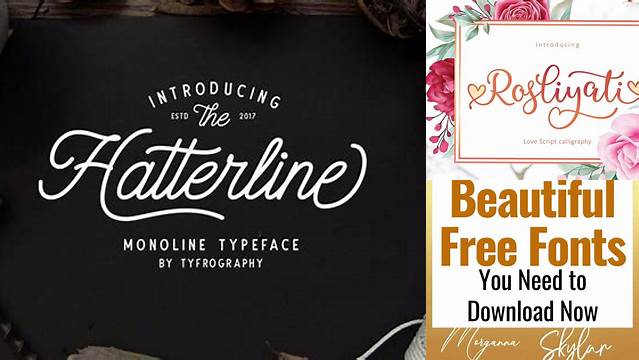
Get Stunning Script Fonts: Free Downloads Await!
Hey guys! Are you on the hunt for some beautiful script fonts to spice up your designs? Well, you're in the right place! This article is all about script font free download options, and trust me, there's a treasure trove of amazing fonts out there just waiting for you. We'll dive into where to find them, how to use them, and even explore some of the best free script fonts available right now. So, grab your coffee, settle in, and let's get this font party started! Let's explore the wonderful world of script fonts, looking at options for a script font free download, and how to make the most of these elegant and versatile typefaces. These fonts can bring a touch of sophistication, playfulness, or even a vintage vibe to your projects. Understanding the nuances of script fonts is key to using them effectively. This will allow you to select the perfect font for your brand's identity and marketing initiatives.
H2: Unveiling the Allure of Script Fonts
Script fonts, with their graceful curves and flowing strokes, hold a unique charm. They mimic handwriting, adding a personal and elegant touch to any design. The beauty of script font free download options is that you can bring this charm to your projects without spending a dime. They’re perfect for logos, invitations, headlines, and any other design where you want to convey a sense of sophistication, creativity, or even a touch of whimsy. The key is to choose the right script font for the job. There are so many different styles! They can range from formal and classic to casual and modern, so you'll surely find one that suits your needs. Think of them like the perfect finishing touch on a beautifully designed cake. But before you start to download all the fonts available, let's delve deeper into what makes script fonts so captivating and how they can enhance your design projects. Keep in mind these fonts can also be used for personal use, allowing you to explore your creativity without restrictions. Script fonts are often associated with elegance, sophistication, and artistry, making them an ideal choice for branding, especially in industries where these qualities are valued. You can create a memorable brand identity by selecting the right script font. The art of script fonts involves a keen understanding of the history of calligraphy, the mechanics of different writing tools, and the evolution of typography. Furthermore, by understanding the impact of visual communication, you can master the art of using script fonts to enhance your message.
H3: The Different Styles of Script Fonts
The world of script fonts is incredibly diverse. You will see this when you start doing a script font free download. From the formal elegance of traditional scripts to the playful strokes of modern calligraphy styles, there’s a script font to match every aesthetic. Knowing these different styles can make you a more informed designer. Let's check out a few common script font styles. First off, we have formal script fonts. These are often inspired by classic calligraphy styles, like the ones you see in wedding invitations or diplomas. They often feature intricate details, elegant curves, and a sophisticated appearance. Next, we have casual script fonts, which have a more relaxed, handwritten feel. These fonts are perfect for a friendly, approachable design, such as a logo for a boutique store or a social media post. There are also brush script fonts, which imitate the strokes of a paintbrush. They often feature thick and thin lines, giving a dynamic and artistic touch to your designs. Lastly, modern script fonts often blend elements of traditional and casual scripts with a contemporary twist. They can be bold, minimalistic, or highly stylized. The variety ensures that there’s a script font for every design project, so keep exploring, and you're sure to find the perfect fit.